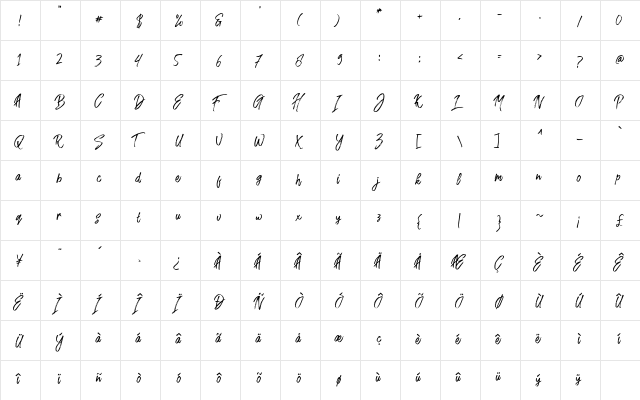
Fusterd Brush Regular
Design Context for Fusterd Brush Typeface
Fusterd Brush flows with the natural rhythm of handwritten lettering, making it ideal for designs that call for warmth and personal expression.
Font Pairing: Combine Fusterd Brush with a simple geometric sans for maximum contrast — the tension between flowing curves and clean structure is a classic typographic pairing.
Pro Tip: Use Fusterd Brush for short runs of text — names, titles, or taglines. Extended body copy in script faces tires the eye quickly.